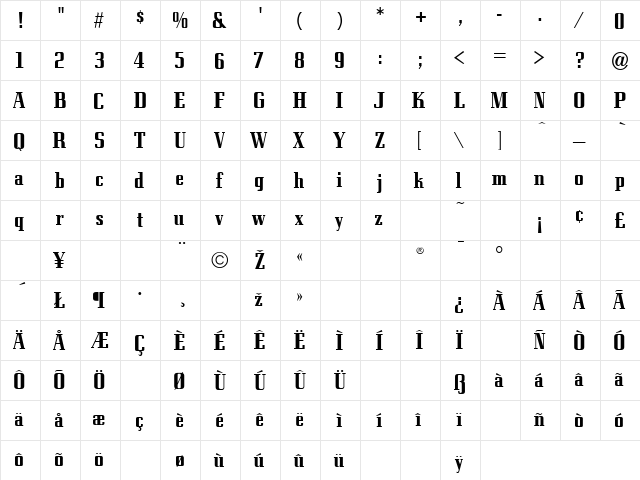
Eden Bold Regular
Design Context for Eden Bold Typeface
Eden Bold takes a measured approach to typography — its balanced proportions and neutral character make it a reliable workhorse for both digital and print work. Its bold stroke weight gives it real presence on the page.